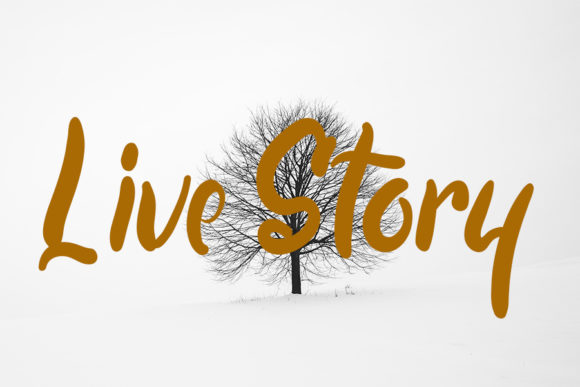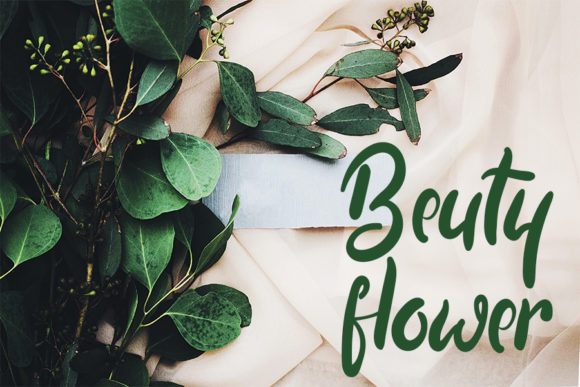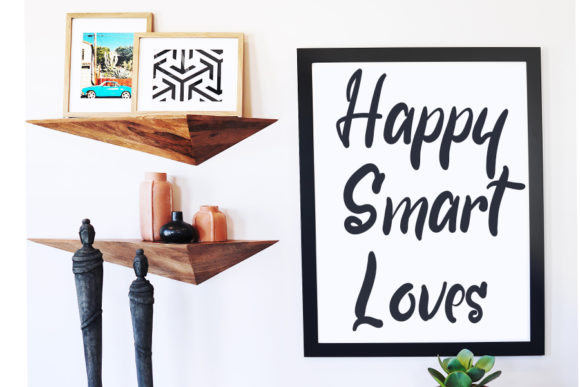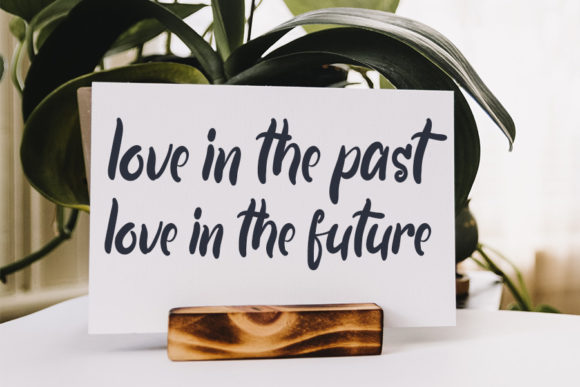
Unleash Your Creativity with Bellarosa Font
Have you ever sat at your desk, staring blankly at a blank page, trying to come up with the perfect design? You’ve got a vision in your head, but it’s just not translating onto the screen. That’s where the magic of typography comes in – the right font can make all the difference. For me, that font is Bellarosa, a flowing, thick lettered handwritten font that’s become my go-to for creating spectacular designs.
Bellarosa Font is more than just a pretty face – it’s a versatile tool that can be used for a wide range of projects, from elegant wedding invitations to playful social media graphics. Its unique style is sure to capture attention and leave a lasting impression. Whether you’re a seasoned designer or just starting out, Bellarosa Font is an invaluable addition to your toolkit.
Bellarosa Font Key Features
- Font Family: Bellarosa comes in 2 font families: Regular and Bold.
- Character Count: Contains a total of 256 characters, including uppercase and lowercase letters, numbers, and punctuation marks.
- Unique Characteristics: Bellarosa Font features a unique blend of modern and vintage elements, with intricate details and flourishes that add a touch of elegance and sophistication.
Bellarosa Font Review
I recently had the chance to work with the Bellarosa font, and overall, I’m quite pleased with the results. ✨ One of the things that stands out is its elegant and feminine touch, making it perfect for projects that require a touch of sophistication. The font’s unique blend of modern and vintage elements adds a level of depth that’s hard to find in other fonts.
Here are some of the things that work well with the Bellarosa font:
- ✨ Elegant and feminine touch, perfect for projects that require sophistication
- ✨ Unique blend of modern and vintage elements adds depth
- ✨ High-quality glyphs and smooth line work
- ⚠️ May not be suitable for projects that require a bold, edgy look
Overall, I’d give the Bellarosa font 4 out of 5 stars. It’s a beautiful, elegant font that’s perfect for projects that require a touch of sophistication. However, its limitations should be taken into consideration before making a final decision.
Tips: Use Bellarosa Font for headings and titles to add a touch of elegance to your designs. Experiment with different font sizes and colors to create visual hierarchy.
Tips: Use Bellarosa Font for custom typography and add a touch of sophistication to your designs. Experiment with layer styles and effects to enhance the font’s appearance.
Tips: Use Bellarosa Font for presentations and documents that require a touch of elegance. Experiment with different font sizes and colors to create visual hierarchy.
Bellarosa Font is ideal for:
- Luxury product packaging